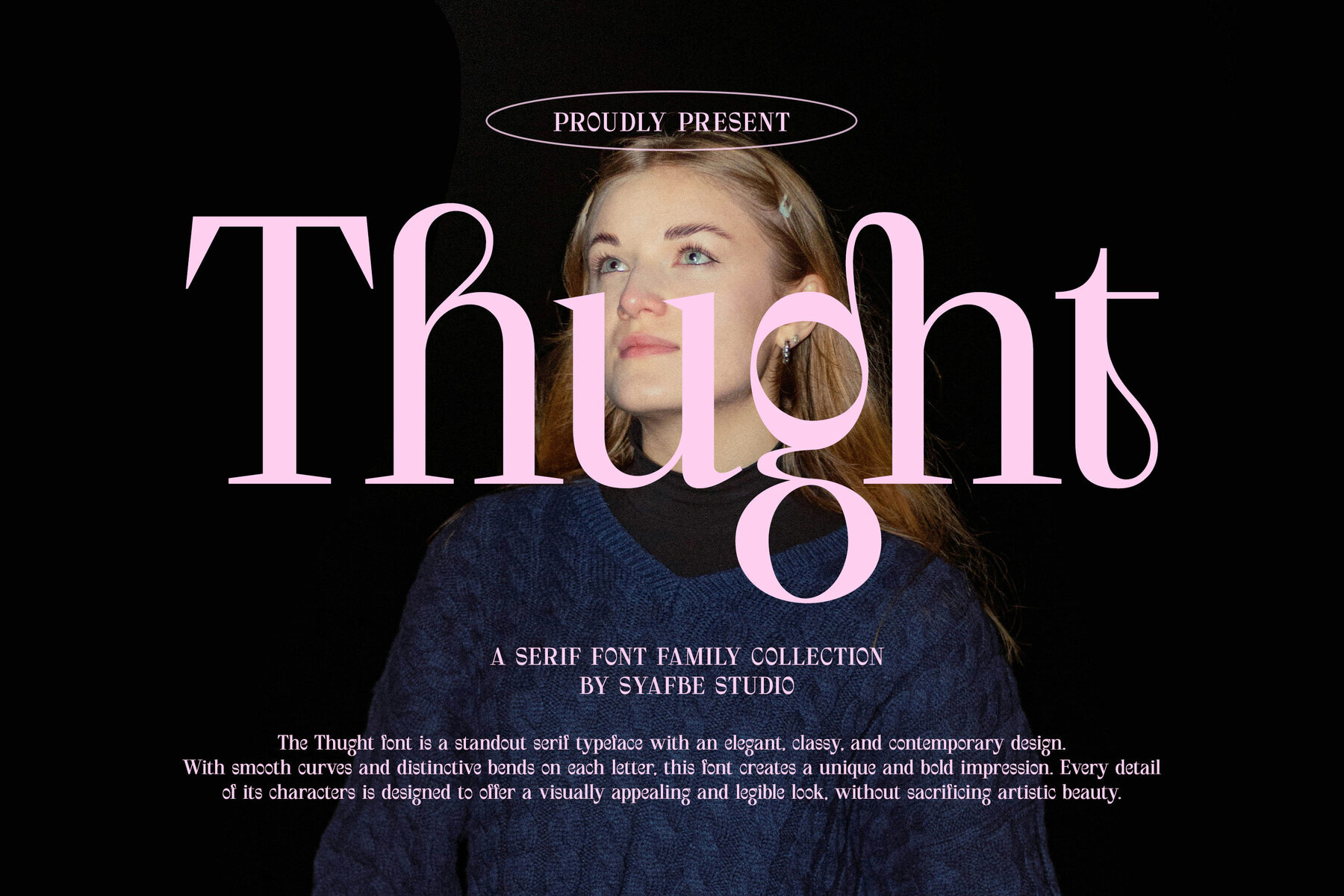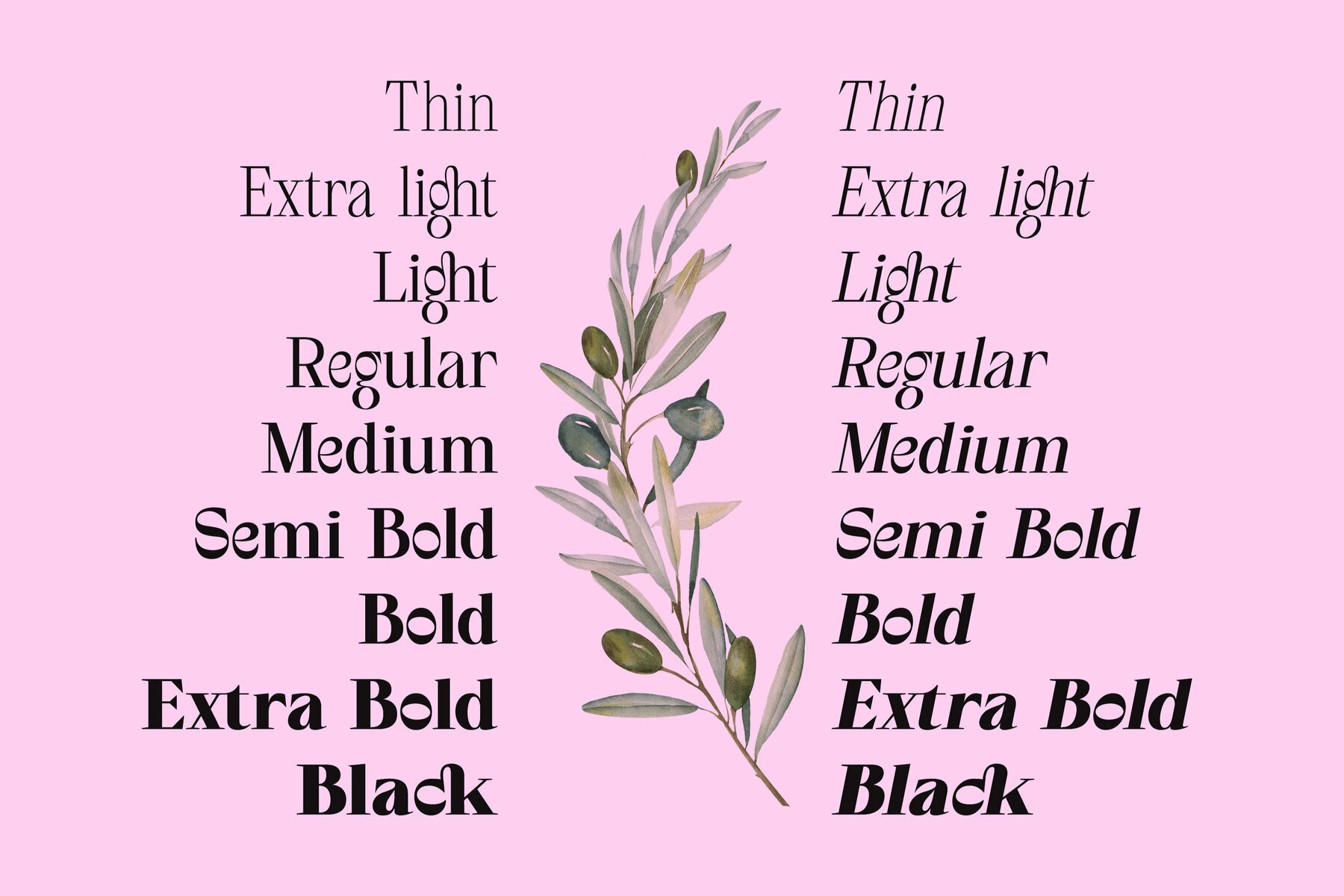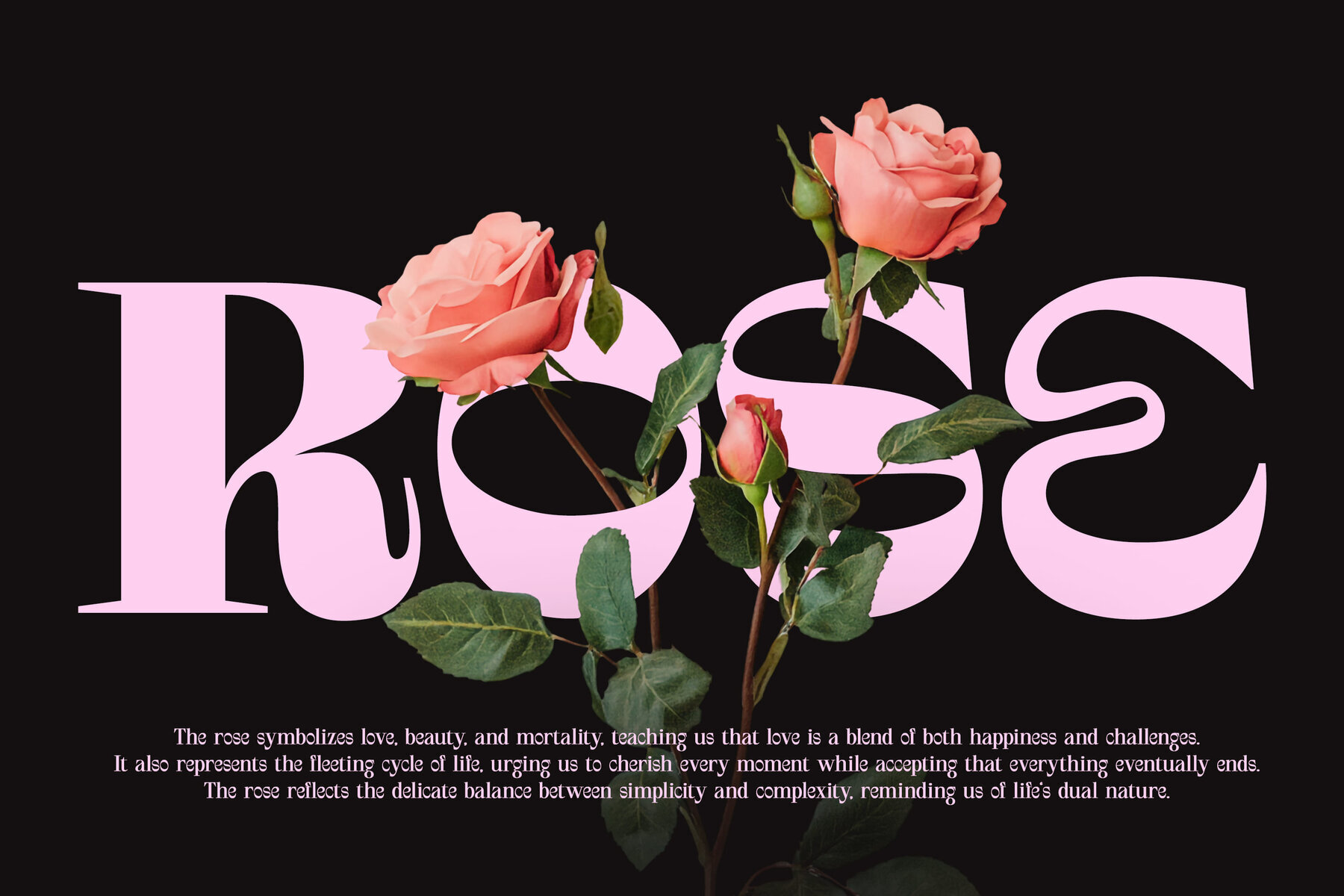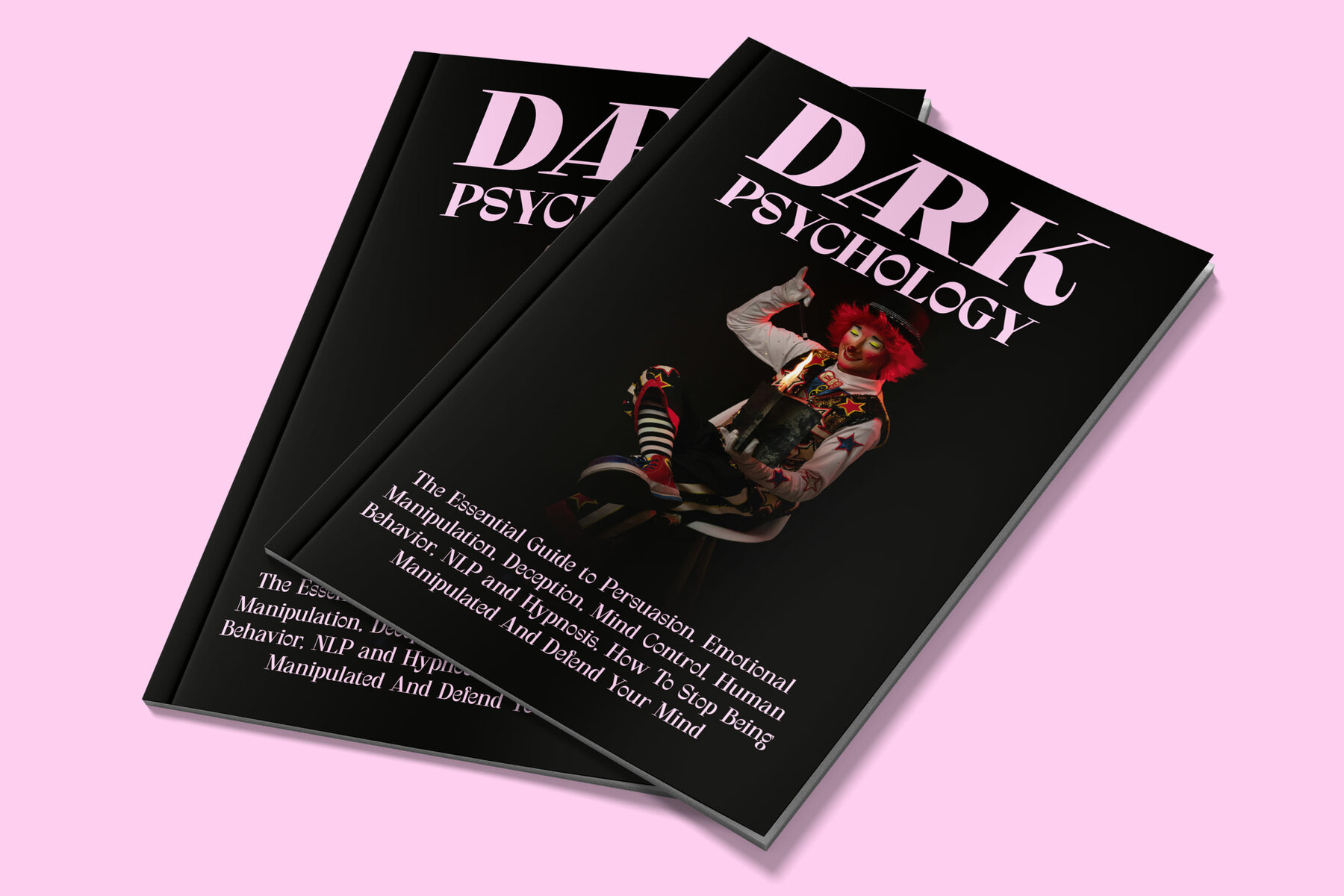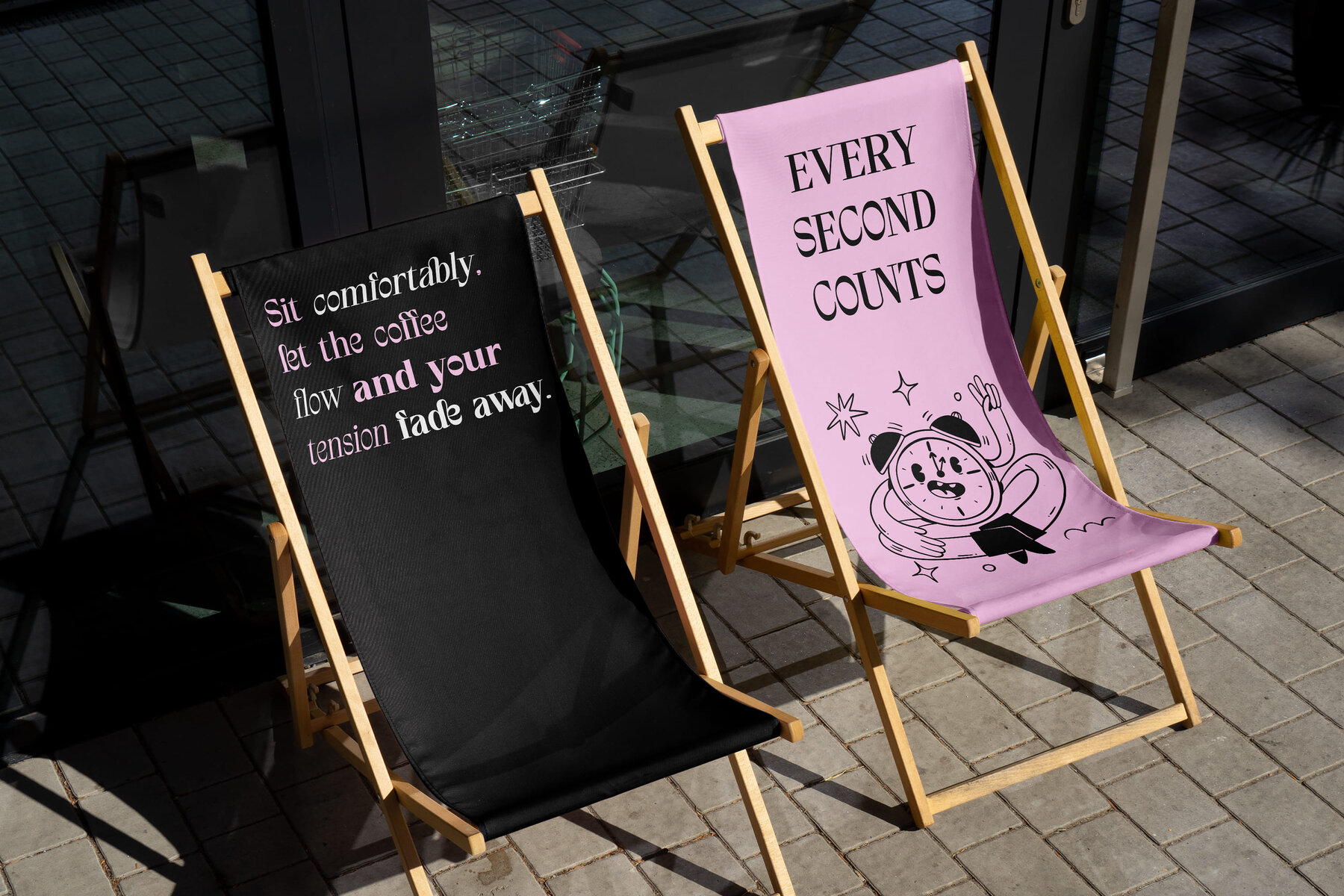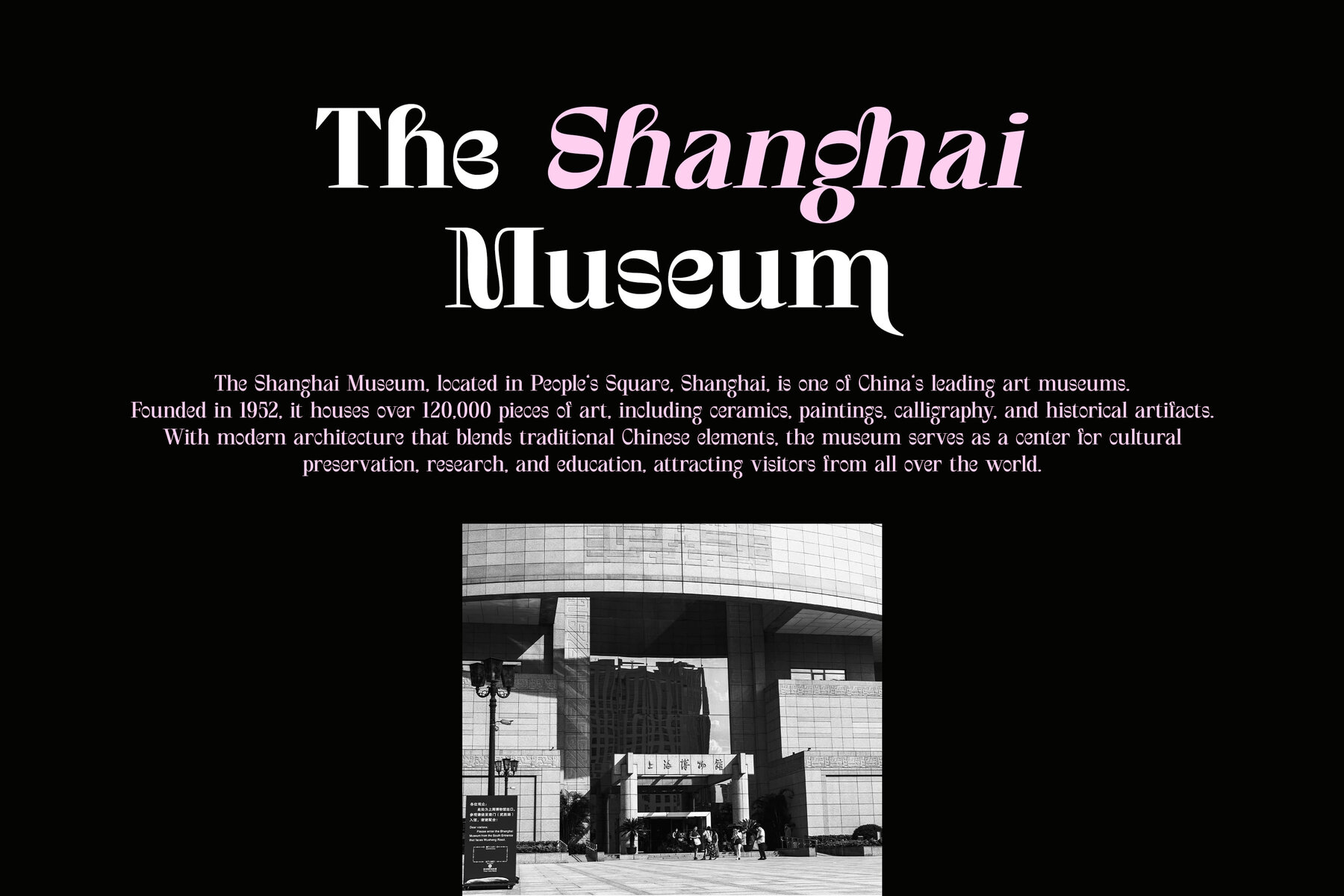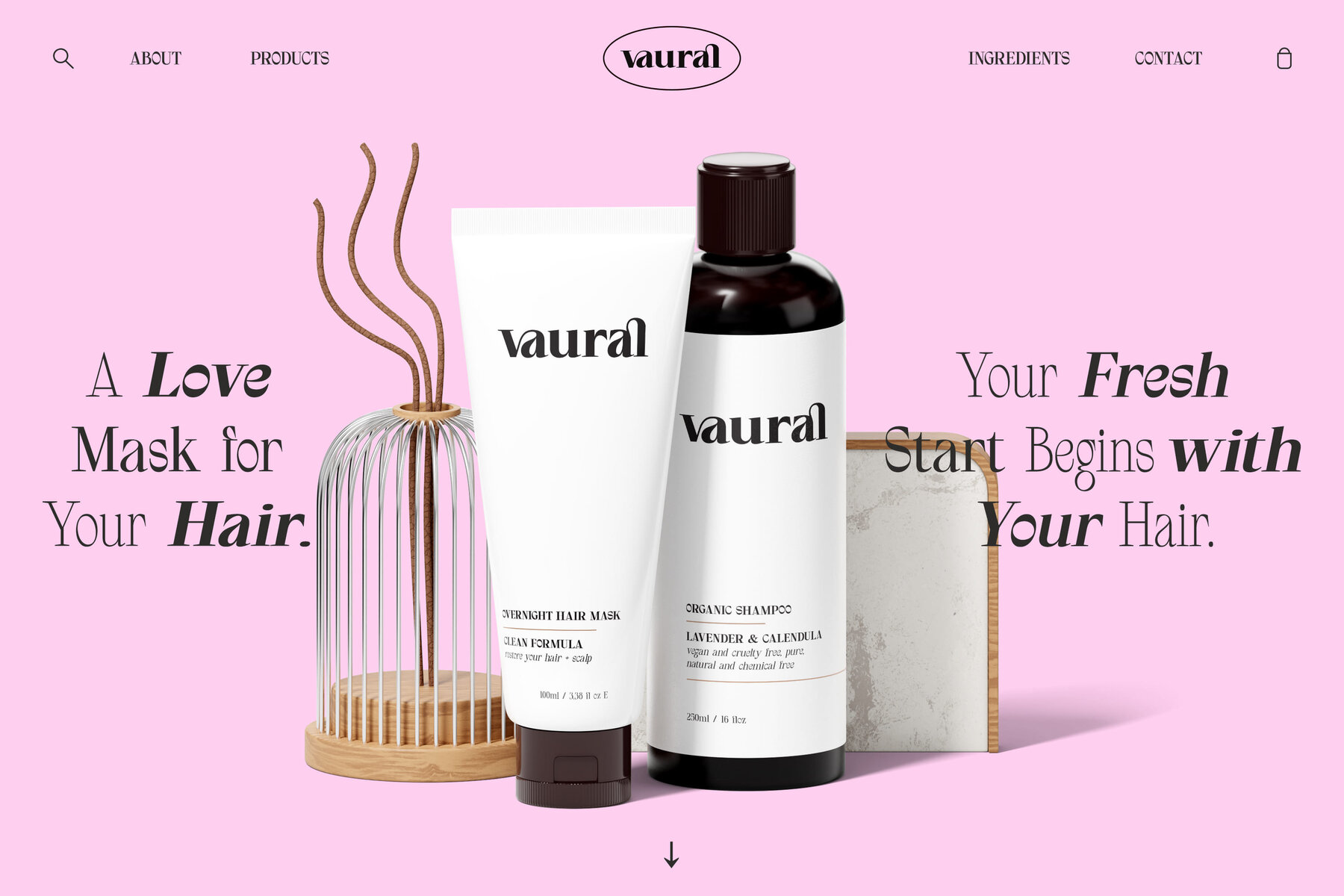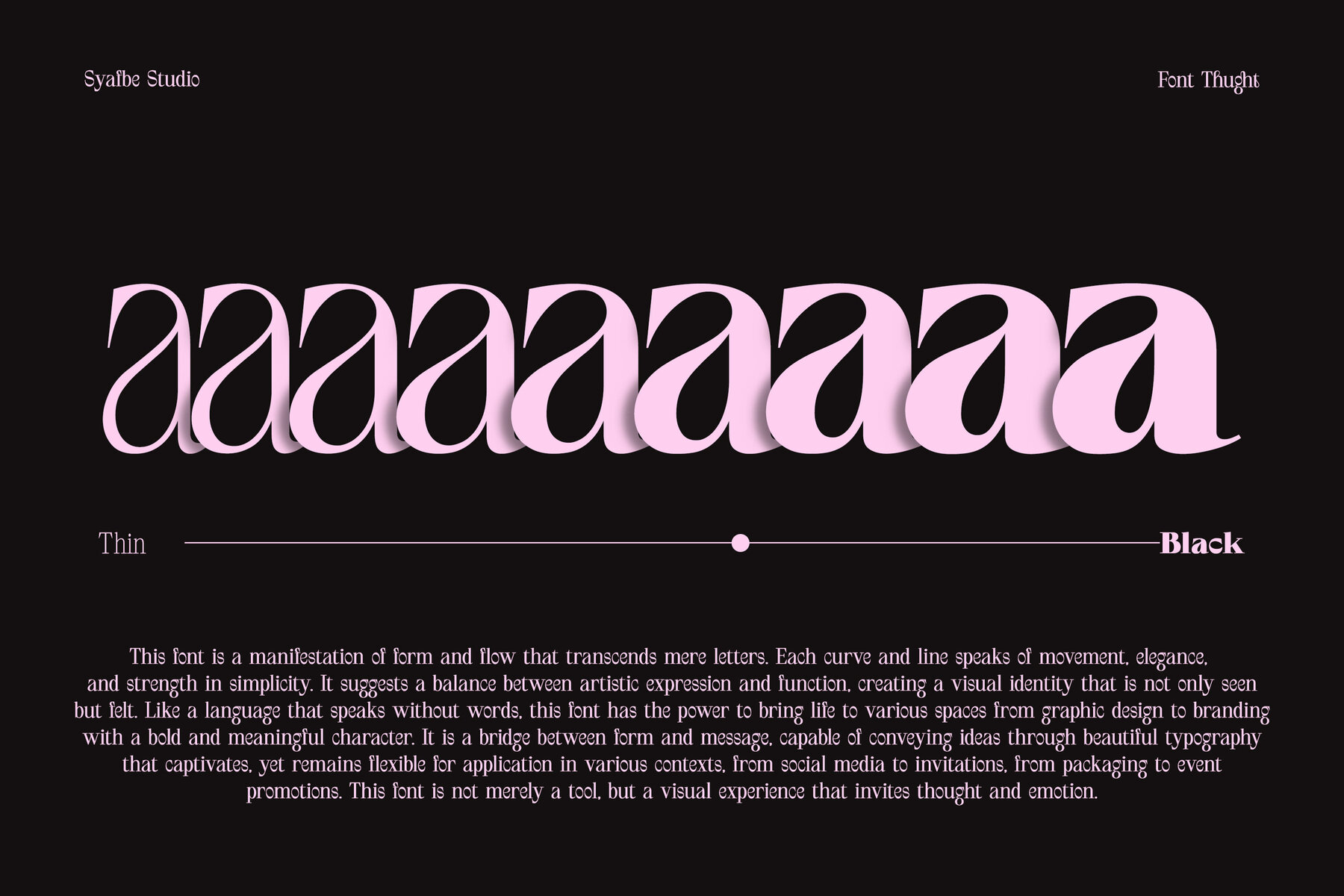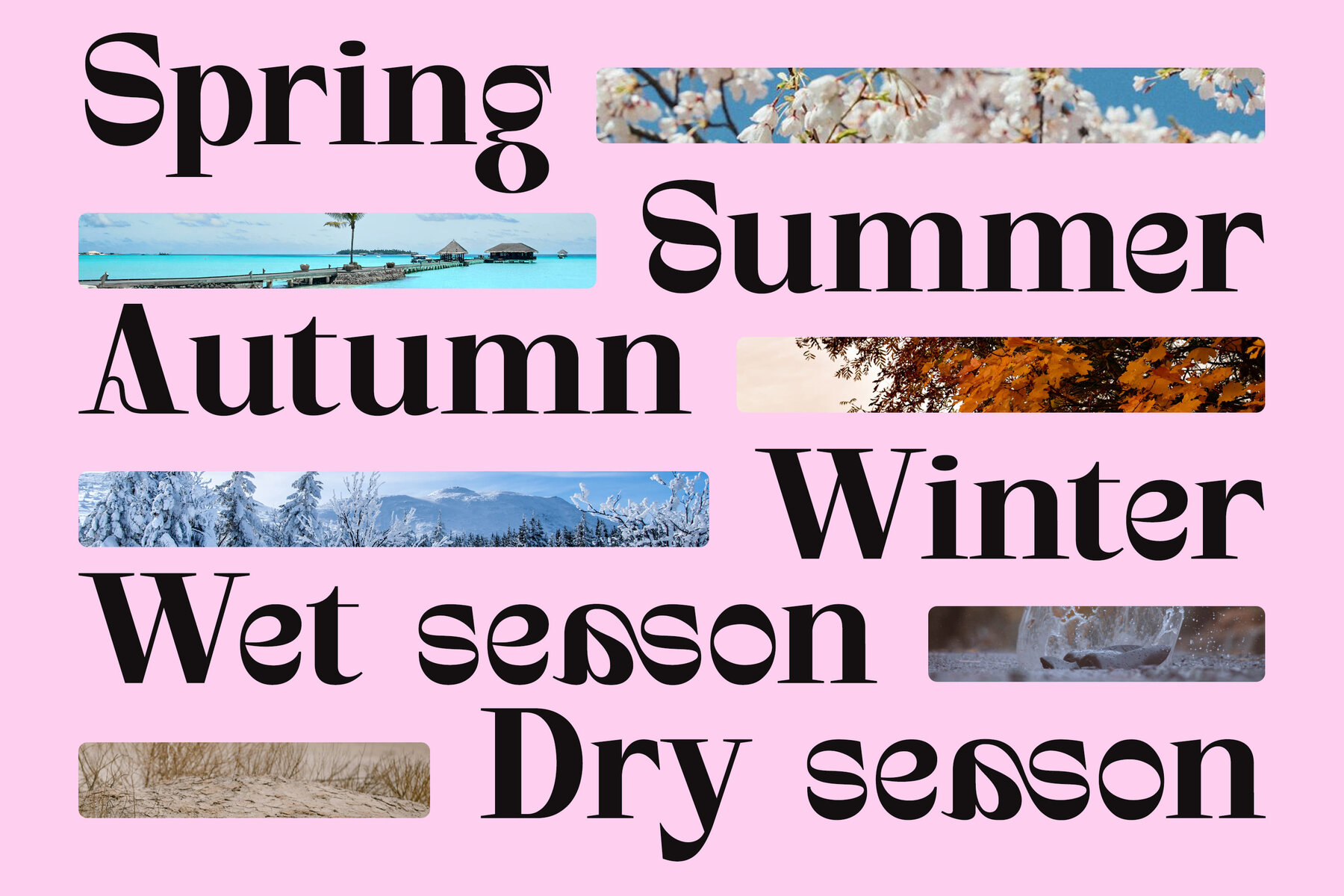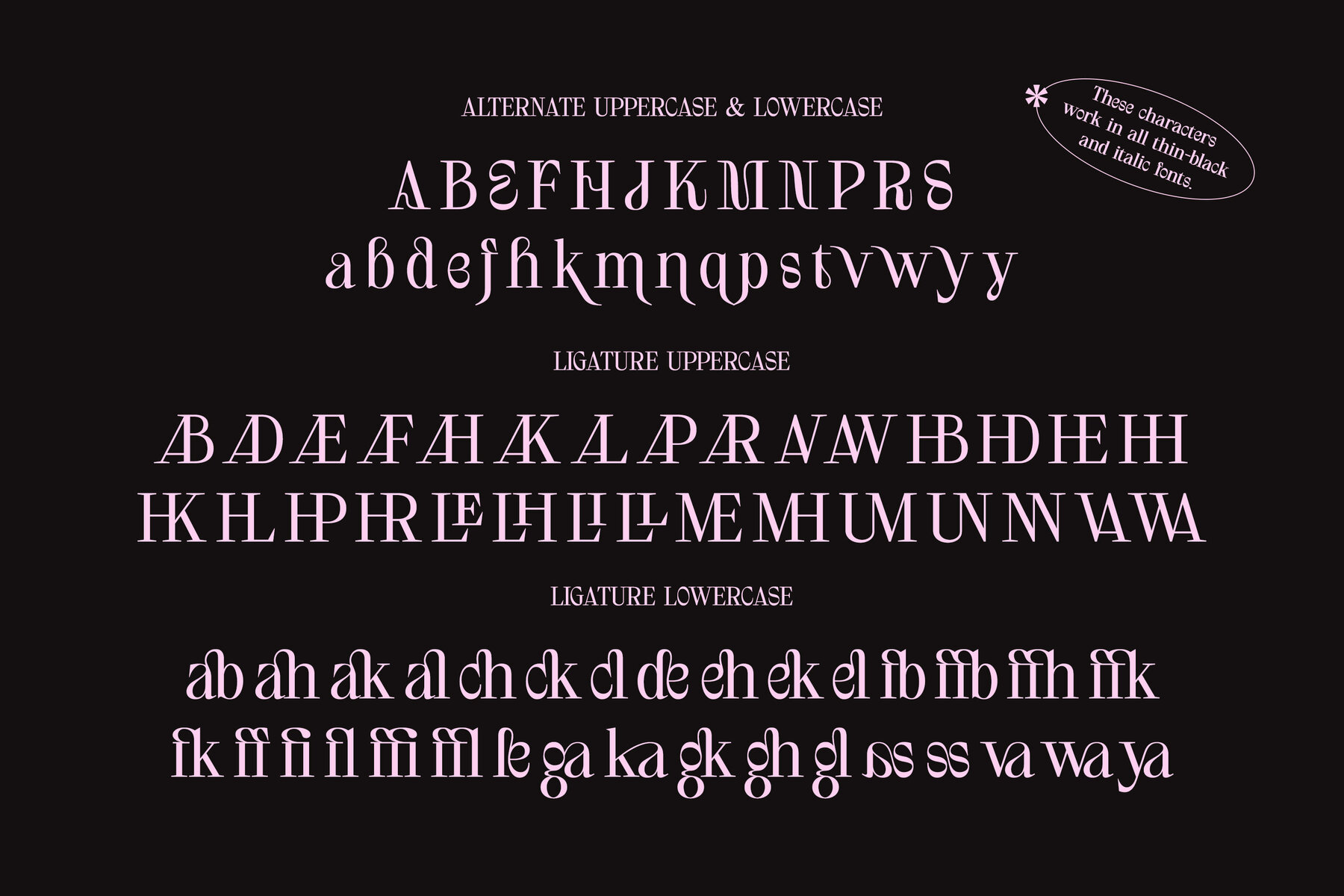
Thught Font
Thught is a remarkable serif typeface, blending elegance with a contemporary edge. Its smooth curves and distinctive letter bends create a bold impression while ensuring every character is visually appealing and clear. Designed with keen attention to detail, Thught offers a harmonious balance of legibility and artistic beauty. This versatile font effortlessly spans from branding and editorial design to digital media, making it ideal for a myriad of applications. Whether crafting company logos, book titles, or event posters, its luxurious yet dynamic feel suits both formal and casual projects. Thught embodies a unique fusion of modernity and tradition. While its serif elements nod to classic designs, the curved shapes introduce a fresh, standout vibe. This balance captures a timeless creativity, perfect for creators who appreciate the past while embracing present innovations.Thught: Elegant Serif Font with Modern Flair